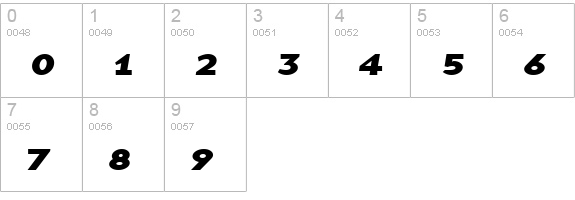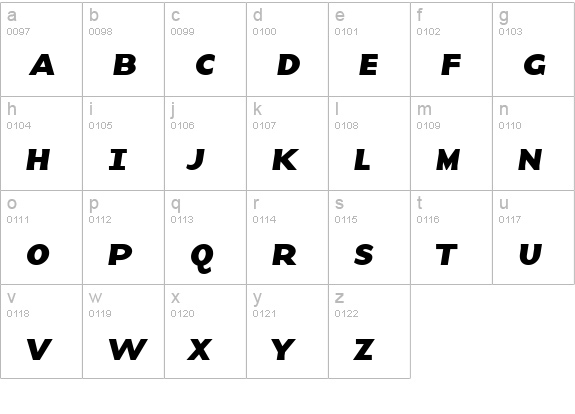
BaseNineSmallCaps Bold Italic Font Details
BaseNineSmallCaps Bold Italic is a strong, high-contrast, italic variant in the BaseNineSmallCaps typeface family \xE2\x80\x94 well suited to headlines, attention-grabbing titles, and strong calls-to-action.
Introducing BaseNineSmallCaps Bold Italic font, a striking and versatile typeface that exudes confidence and sophistication. With its bold and italic design, this font is perfect for creating eye-catching headlines, titles, and branding materials. The unique small caps style adds a touch of elegance and refinement to any project. Best of all, BaseNineSmallCaps Bold Italic font is available for free download at FontsMarket.com. Whether you're a designer looking to elevate your designs or a business owner seeking a distinctive look for your brand, this font is a must-have in your toolkit. Don't miss out on the opportunity to enhance your projects with this stylish and impactful typeface. Download BaseNineSmallCaps Bold Italic font today and make a bold statement with your designs.